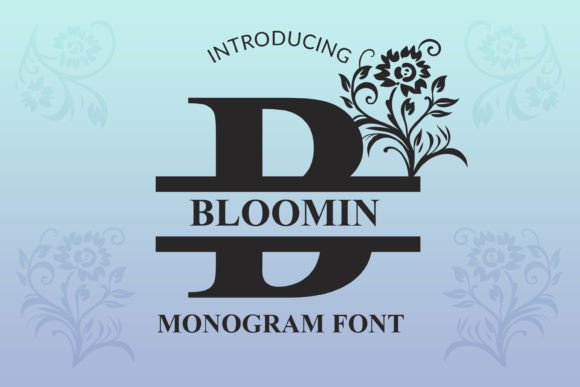
Introducing Bloomin’ Monogram: A Stunning Floral Monogram Font
I’ll never forget the moment I stumbled upon the perfect font for a client’s wedding invitation project. I had been searching for what felt like hours, trying out font after font, but nothing seemed quite right. That was until I discovered Bloomin’ Monogram, a beautiful floral monogram font that captured the essence of nature’s beauty. In this article, I’ll share my experience with Bloomin’ Monogram, its features, and how to make the most of this stunning font.
What Makes Bloomin’ Monogram Special?
Bloomin’ Monogram is a perfect blend of elegance and flair, designed to bring a touch of botanical charm to your projects. This font is ideal for designers, crafters, and creative hobbyists looking to add a personal touch to their work. With Bloomin’ Monogram, you can easily create stunning monograms by typing your initial, then using a font of your choice to add the name in the space provided.
- ✨ Elegant and sophisticated design
- ✅ Easy to use and customize
- 🌿 Beautiful floral elements that add a touch of nature
While Bloomin’ Monogram is an excellent font, there are a few things to keep in mind:
- 🤔 Limited character set, specifically designed for monograms
- ⚠️ May require additional design elements to complete a project
The Story Behind Bloomin’ Monogram
Bloomin’ Monogram was designed with the intention of capturing the beauty of nature and bringing it to your designs. The designer, inspired by the intricate details of botanical illustrations, created a font that would be both elegant and playful. With Bloomin’ Monogram, you can add a touch of whimsy and sophistication to your projects.
| Font Name | Bloomin Monogram Font |
| Author | Paper Daisy Graphics |
Q: What is Bloomin’ Monogram?
A: Bloomin’ Monogram is a stunning floral monogram font designed to bring a touch of botanical charm to your projects.
Q: How do I use Bloomin’ Monogram?
A: Simply type your initial using Bloomin’ Monogram, then use a font of your choice to add the name in the space provided.